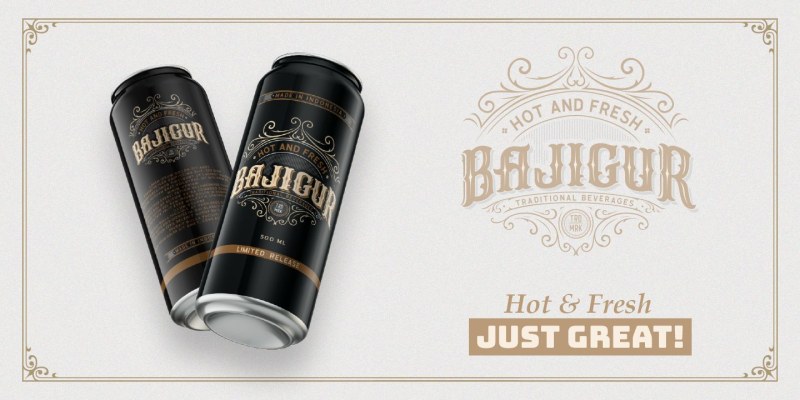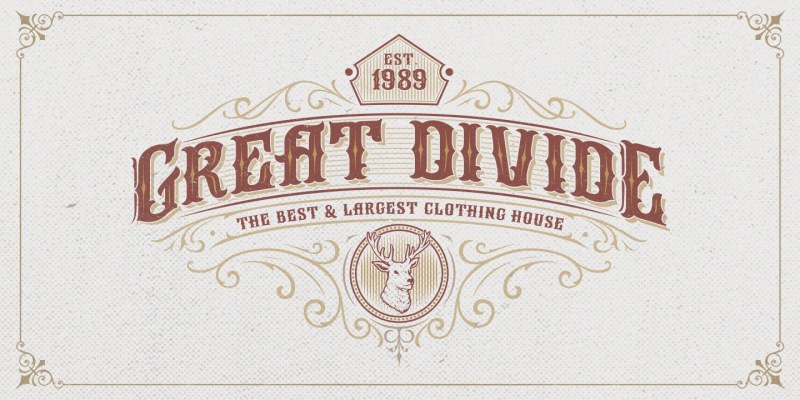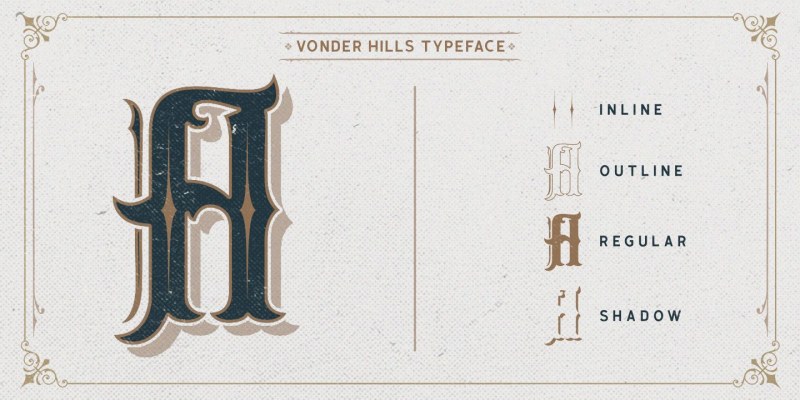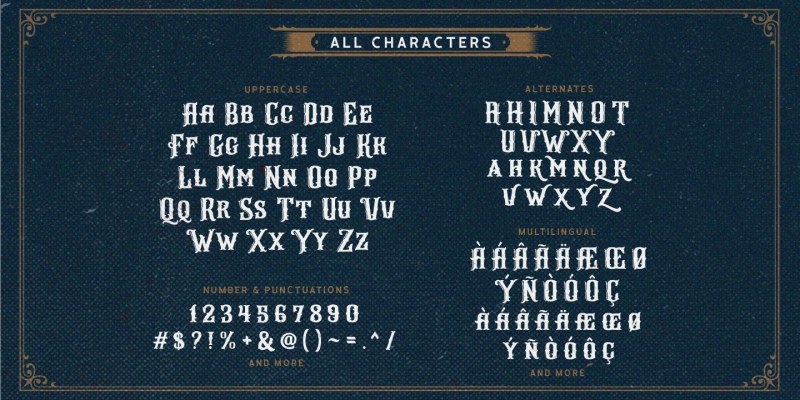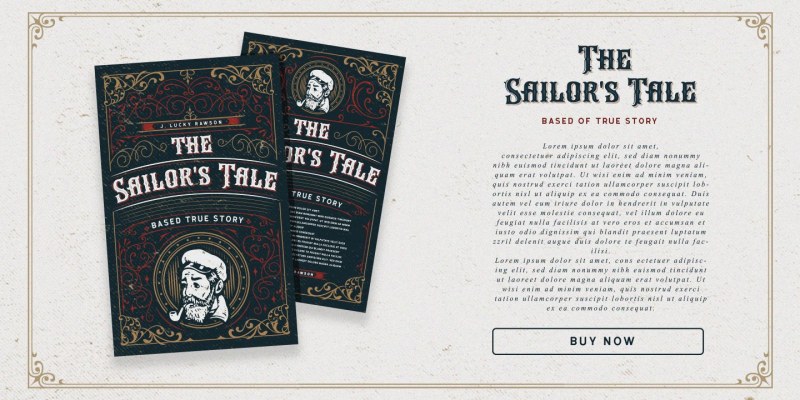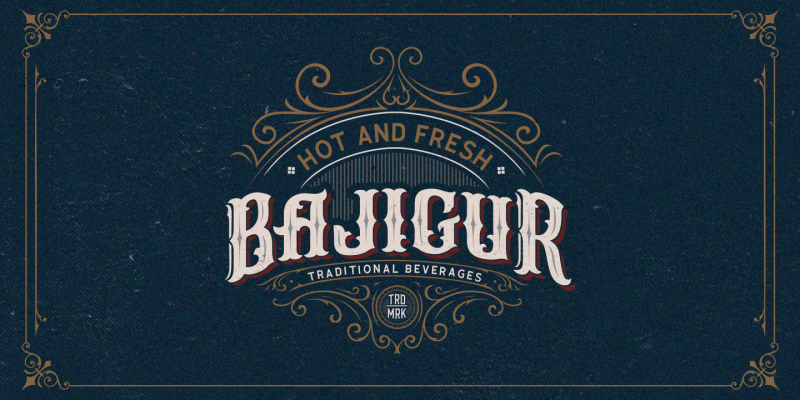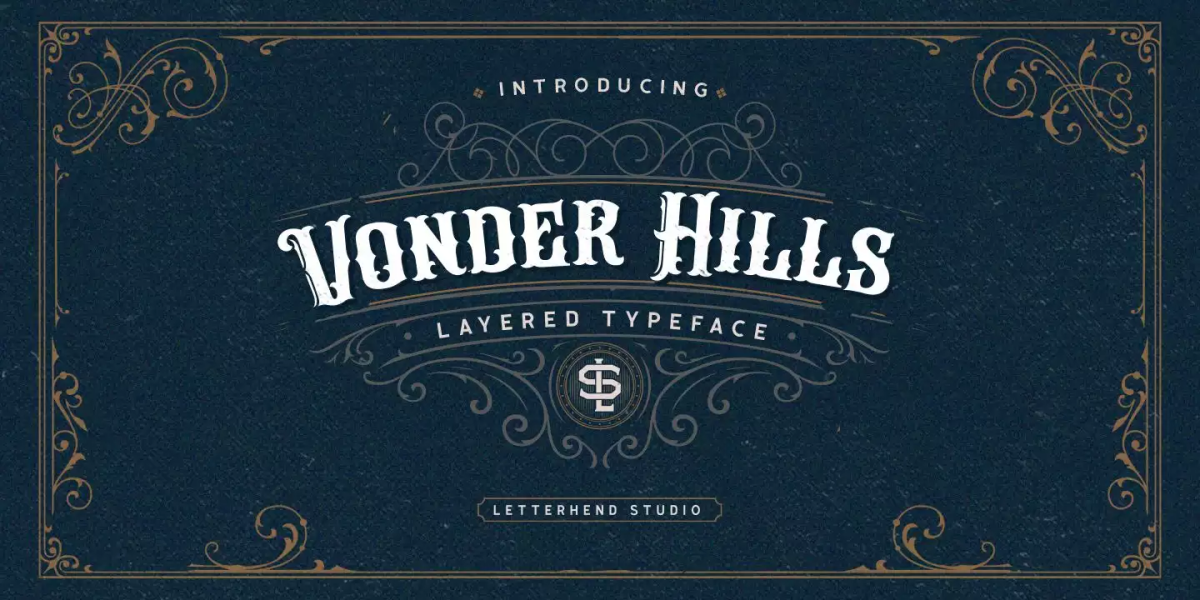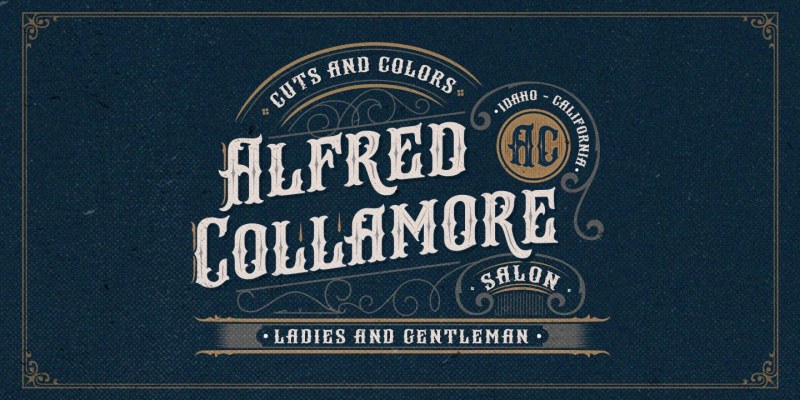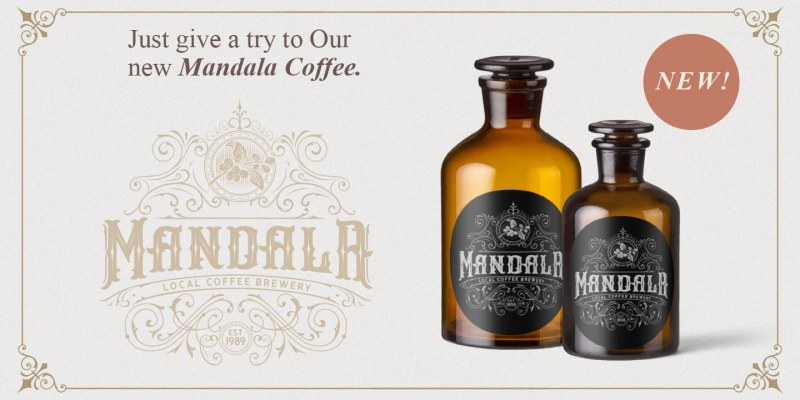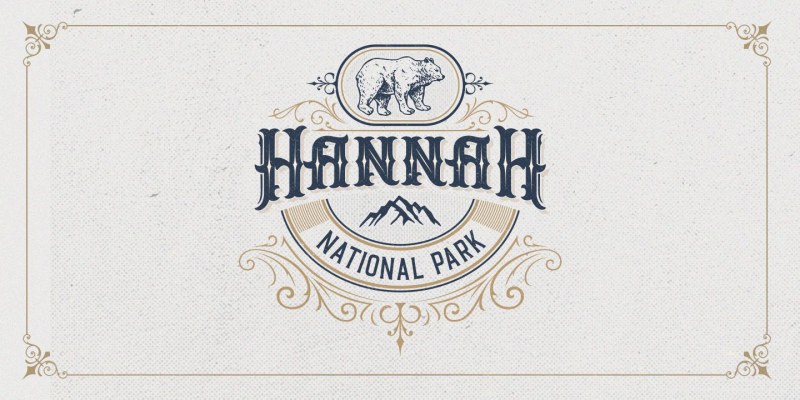
Vonder Hills Font Family
Introducing, Vonder Hills . A layered typeface which is inspired by vintage lettering sign and art. While this font has a victorian touch, it still looks bold and solid.…
Introducing, Vonder Hills . A layered typeface which is inspired by vintage lettering sign and art. While this font has a victorian touch, it still looks bold and solid. Very suitable for for headline, logotype, apparel, invitation, branding, packaging, advertising etc. It also comes in uppercase, lowercase, punctuations, symbols & numerals, stylistic set alternate, ligatures, etc also support multilingual and already PUA encoded. We highly recommend using a program that supports OpenType features and Glyphs panels like many of Adobe apps and Corel Draw, so you can see and access all Glyph variations.